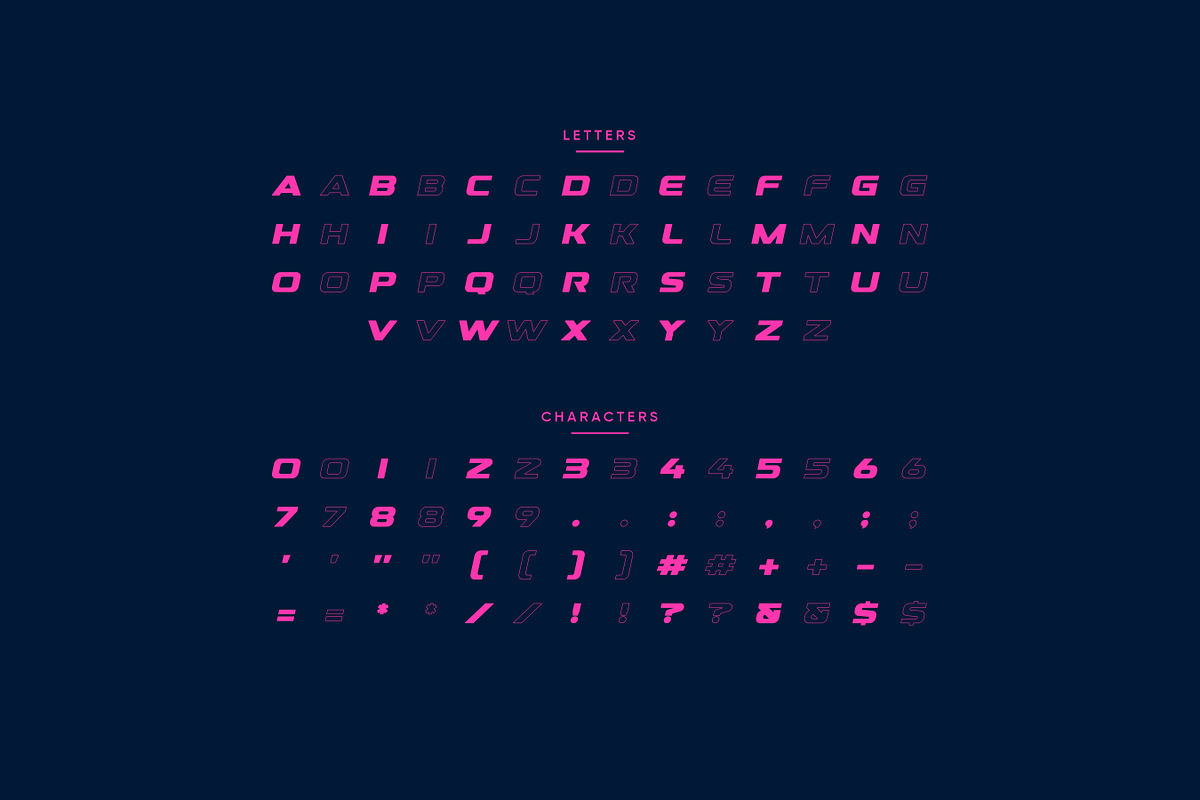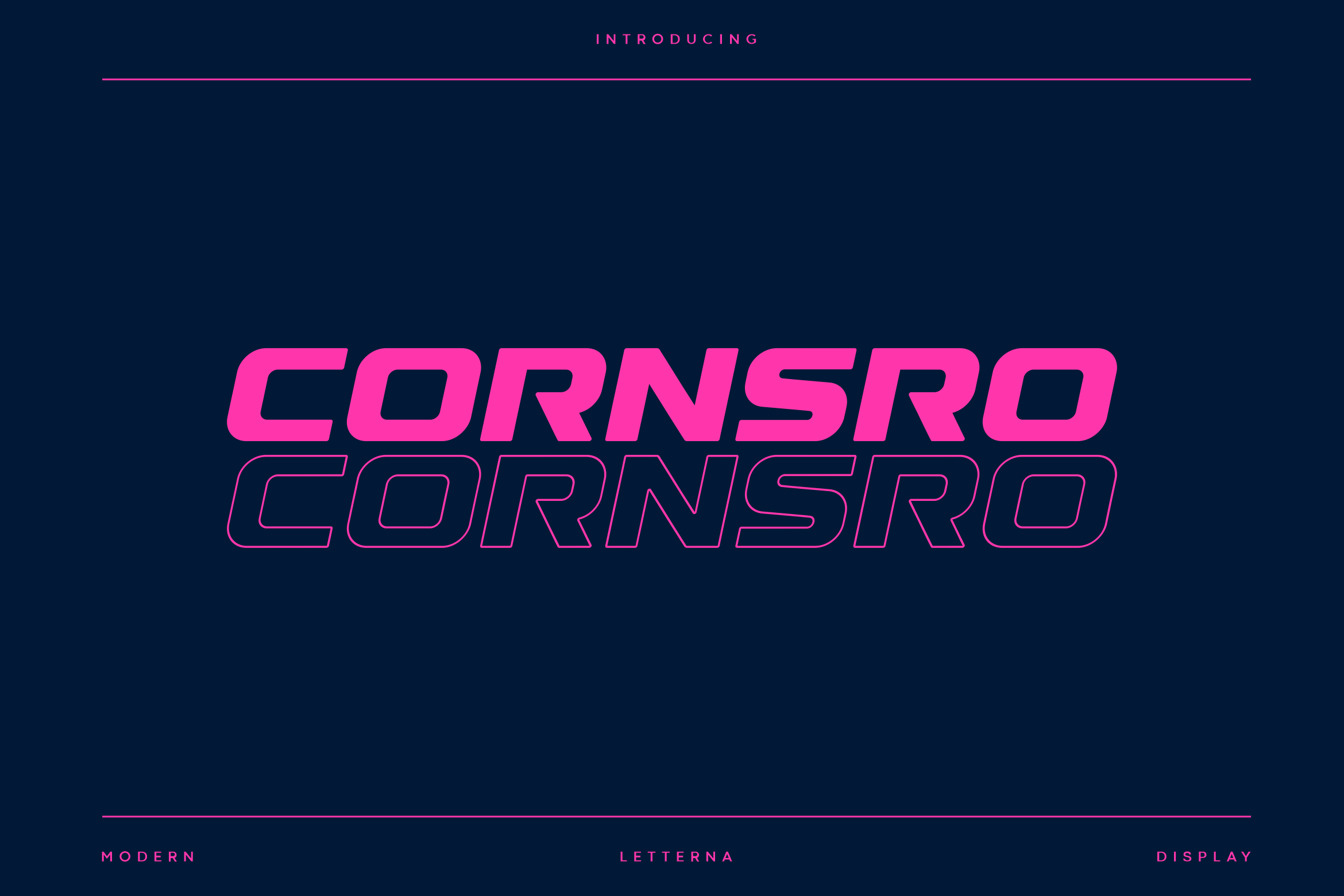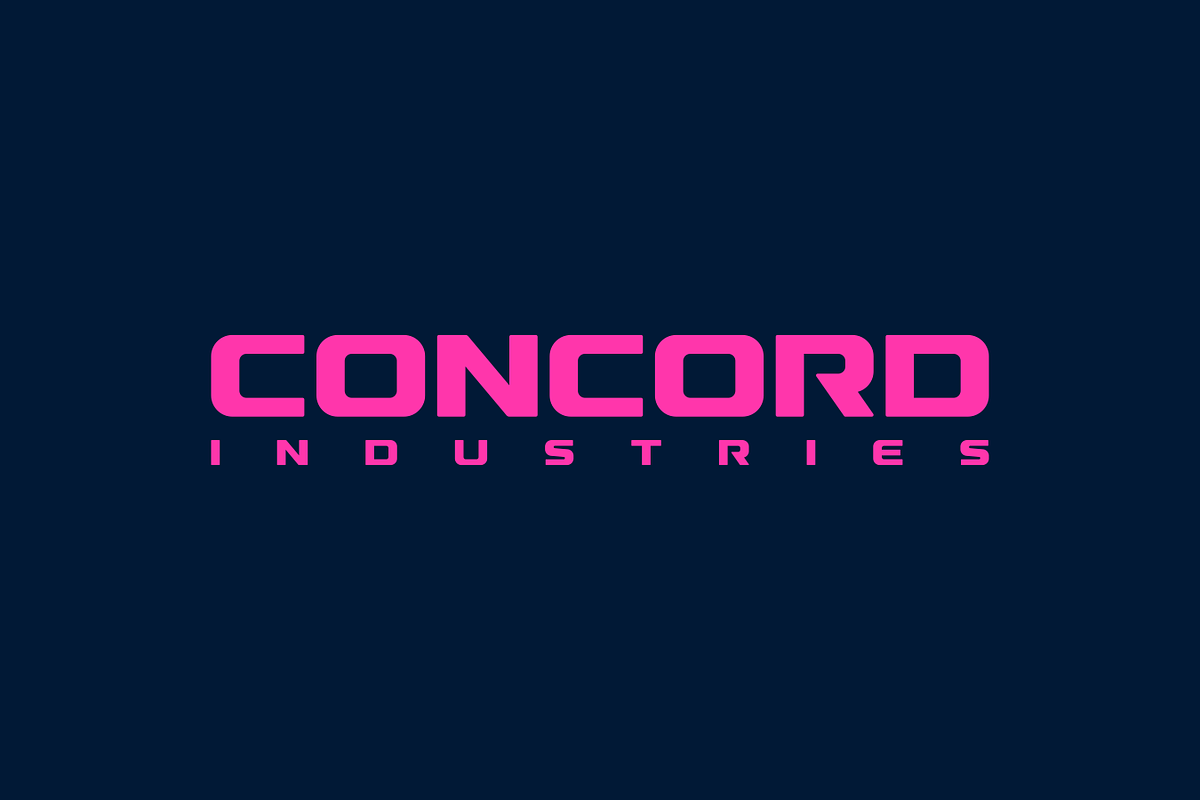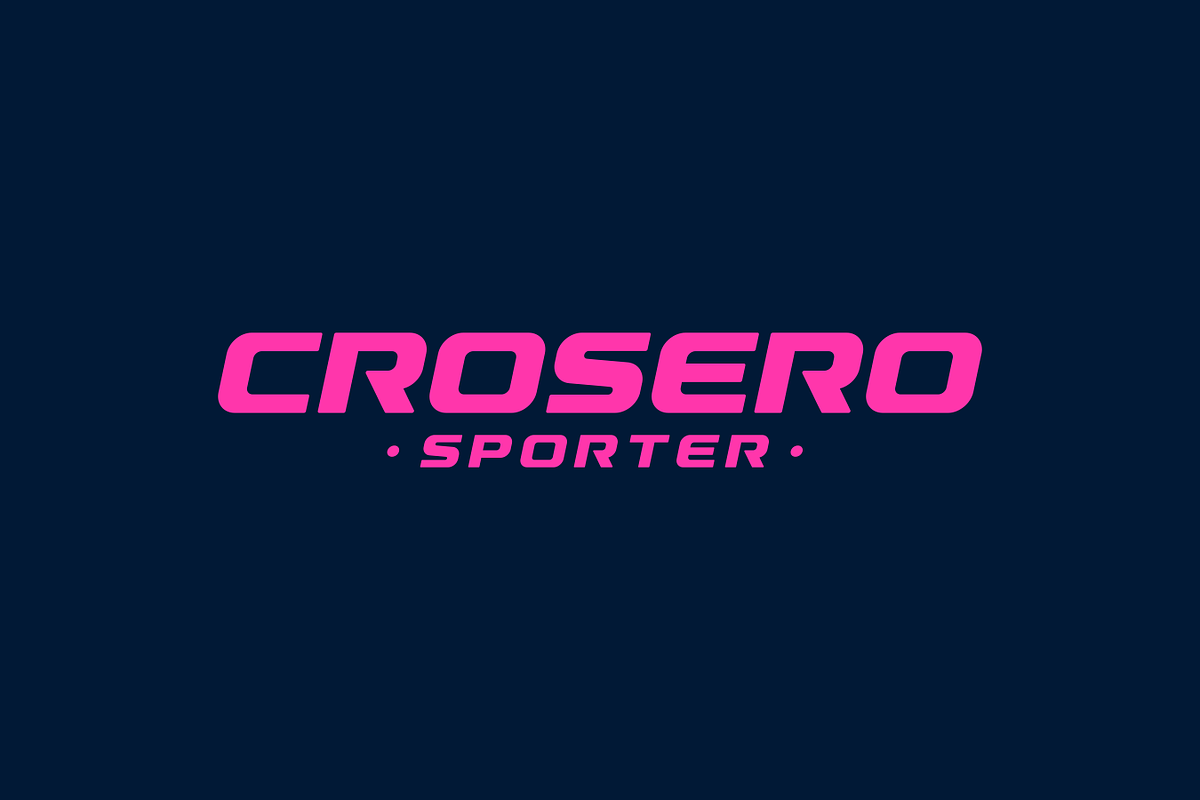
Cornsro - Modern Sport Typeface
Cornsro is a sporty look with a strong and sporty feel, perfect for your titles, logos, typography, flyers and various design needs, making your designs more modern and professional. Cornsro comes with these all caps regular, italic and outline making them look strong and bold, giving them a bold and modern feel, so enjoy creating any project that will showcase your main idea!